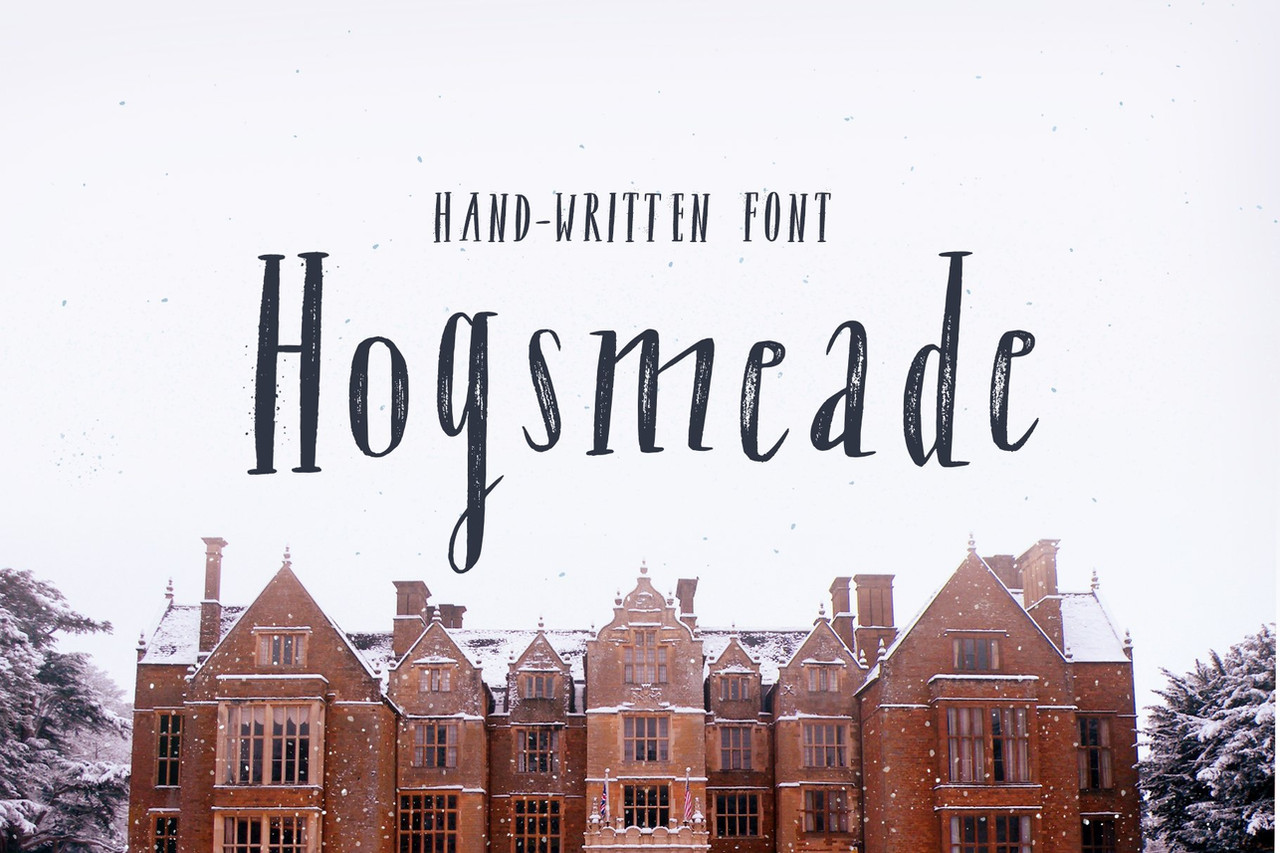
*Welcome to Darumo Shop!* Introducing Hogsmeade font! Hand-written dissimilar style and distressed texture of letters will help you to make headers, logos, and other typographics looking whimsical and with a vintage touch. Each letter alternates making the text looking more natural and unique (see glyphs).